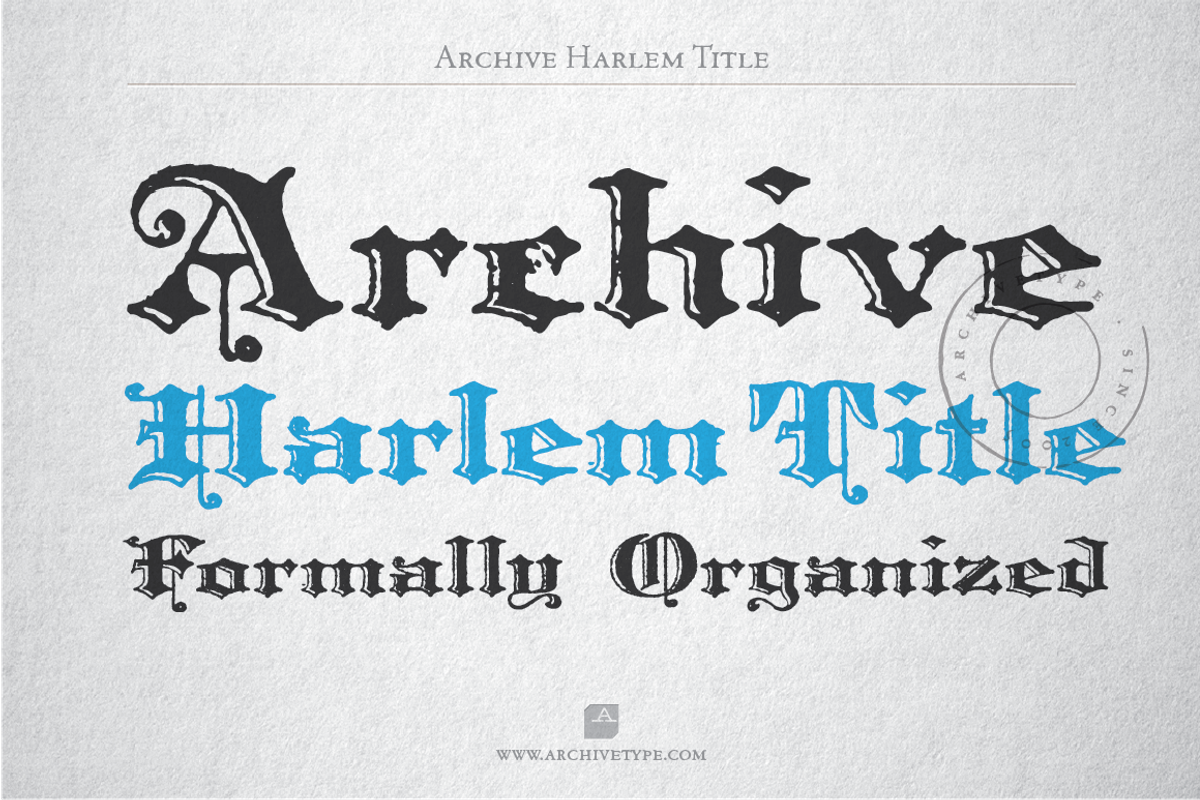
You must purchase this font for commercial use. However, you can download Archive Harlem Title Font Free Download for testing purposes. Archive Harlem is a bold and stylish display font designed for making a statement. With its strong lines, geometric shapes, and vintage-inspired design, this font is perfect for creating attention-grabbing titles, headlines, logos, and posters.
The unique and timeless design of Archive Harlem Title Font makes it ideal for high-impact projects that require a vintage yet modern touch. Whether you’re designing for an event, a retro-themed brand, or creating dynamic advertising materials, this font adds personality and style to your typography.